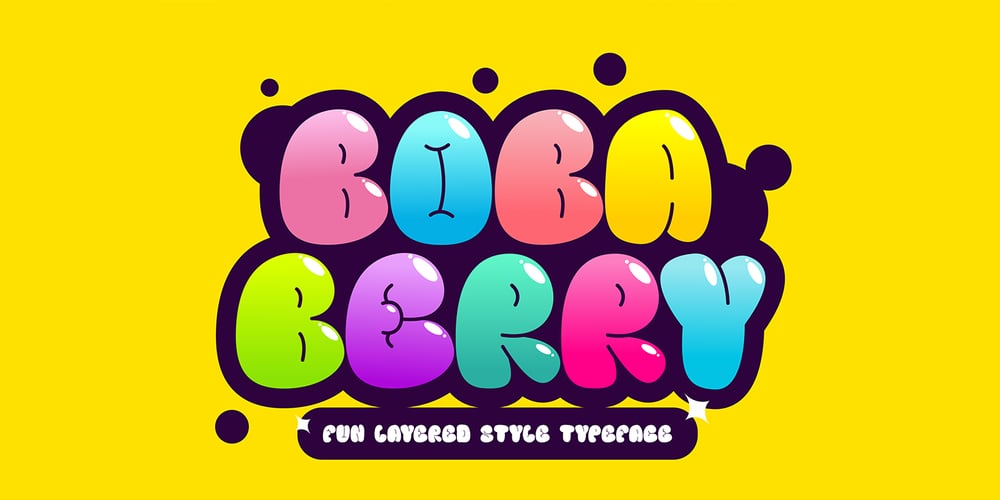
Boba Berry 3d Baloon
Boba Berry 3d Baloon font
Boba Berry 3d Baloon Font Family was designed by Sipanji and published by Sipanji21. Boba Berry 3d Baloon contains 3 styles and family package options. Boba Berry is a 3D balloon display font featuring three distinct layers of characters. Its playful and vibrant design makes it perfect for adding a whimsical touch to any project. Whether you’re designing for children’s parties, birthday invitations, or any other event needing a fun and bouncy vibe, Boba Berry will bring an extra dimension of joy and creativity. The three-layer effect adds depth and excitement, making your designs stand out with a delightful, eye-catching style. Ideal for headlines, posters, and themed events, Boba Berry is sure to captivate and charm your audience.